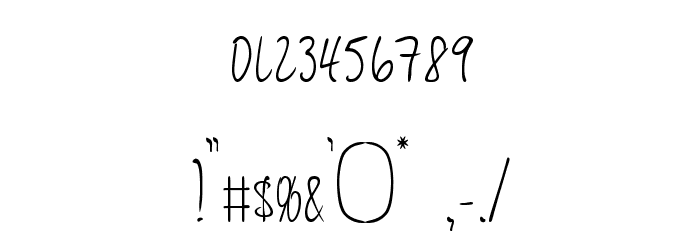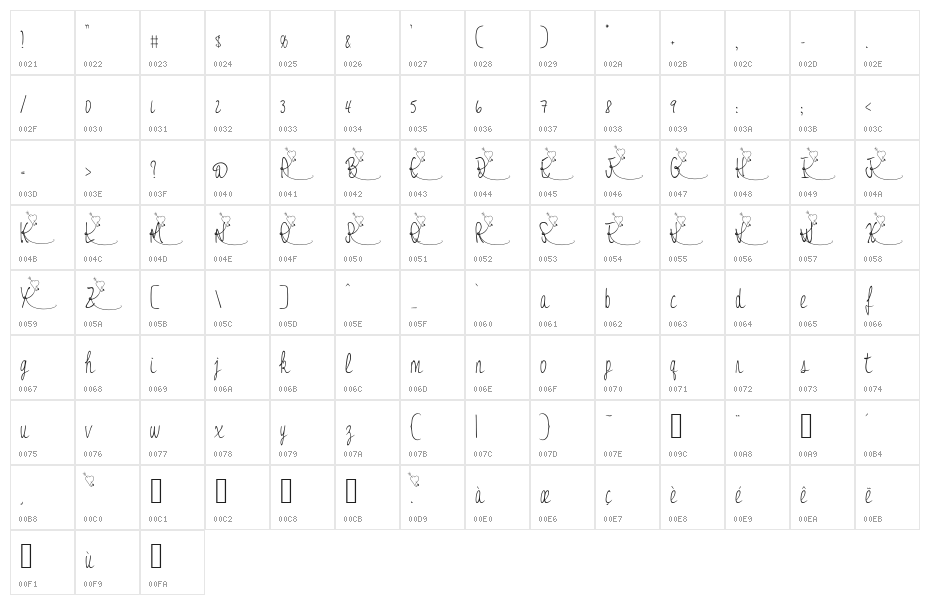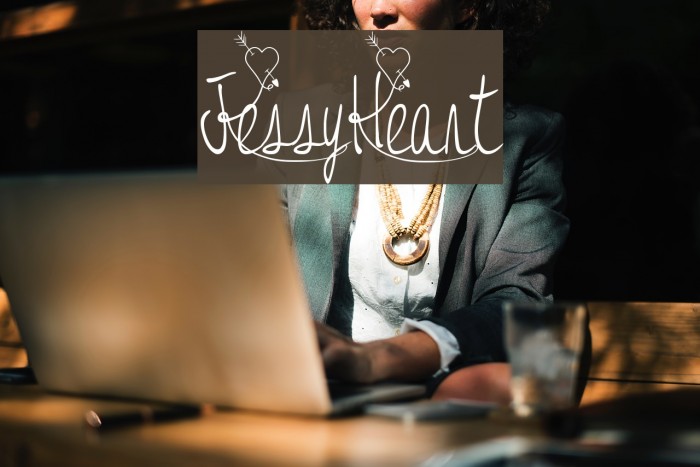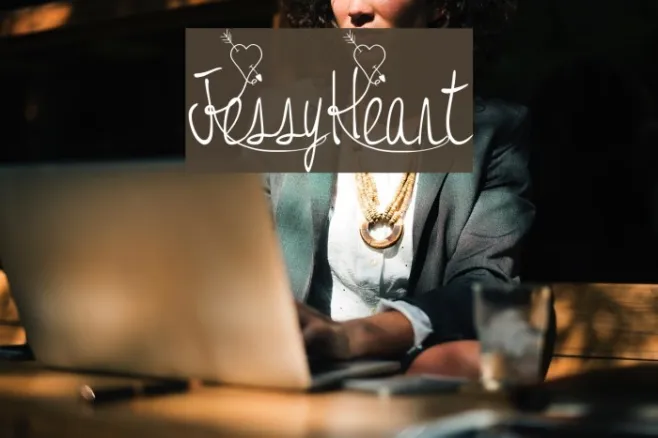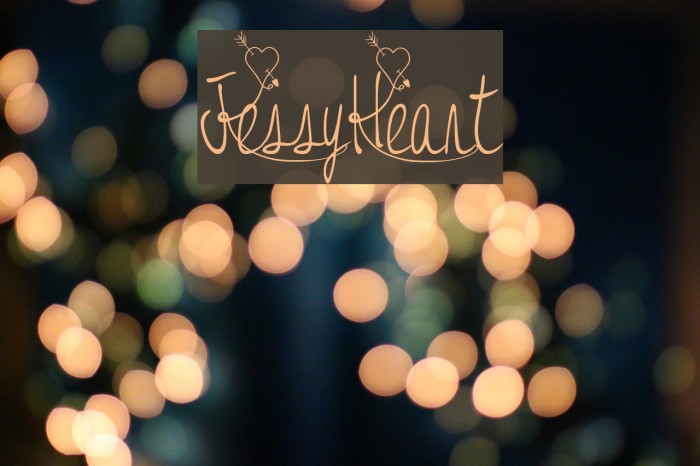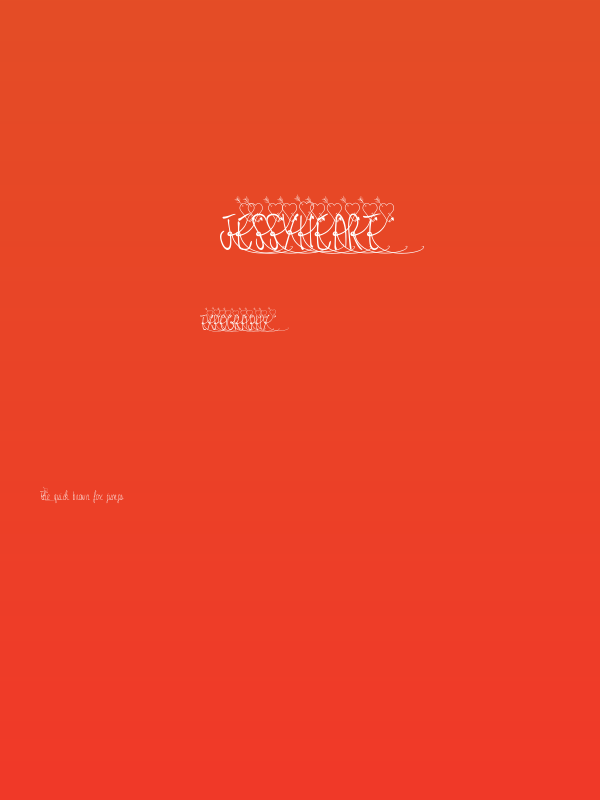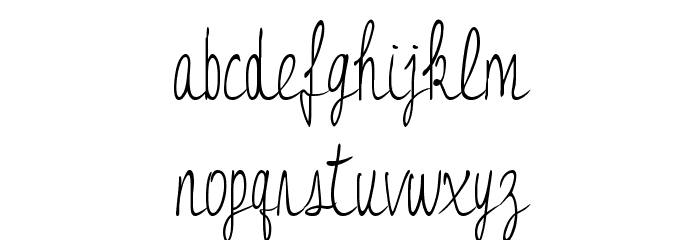
JessyHeart Font
JessyHeart Description
This font features a whimsical and romantic design, characterized by its decorative heart motifs integrated into the uppercase letters. The script is fluid and elegant, with a handwritten style that exudes charm and personality. The lowercase letters maintain a consistent flow, complementing the playful nature of the uppercase. The numerals and special characters are crafted with the same attention to detail, ensuring a cohesive look throughout. This font is perfect for projects that require a touch of romance and creativity, such as wedding invitations, greeting cards, and personal branding.
| Overall Style | Decorative, Romantic |
| Proposed Projects | Ideal for wedding invitations, greeting cards, personal branding, and romantic-themed projects. |